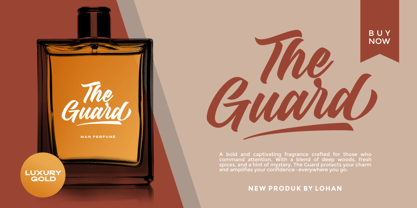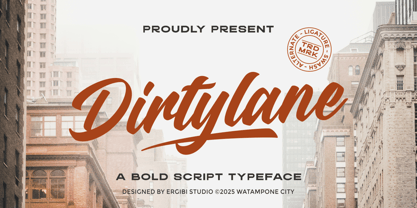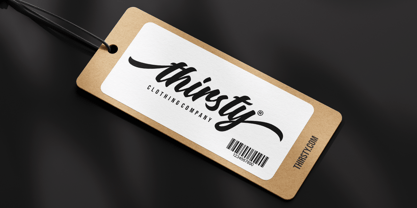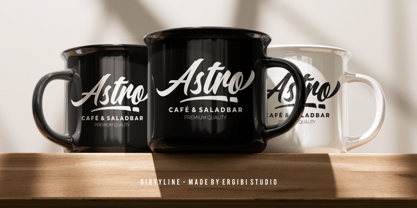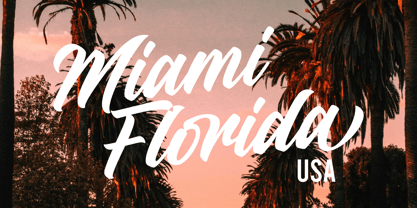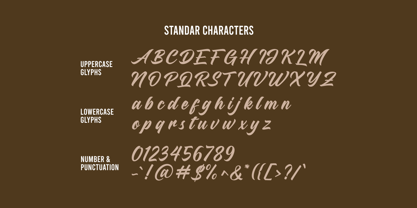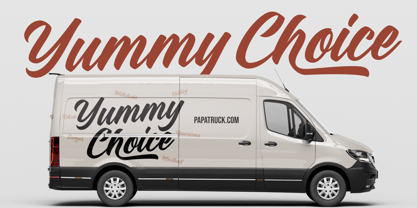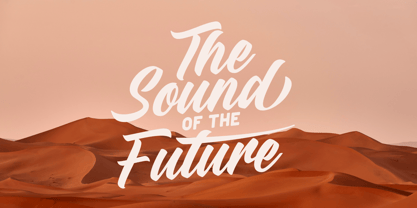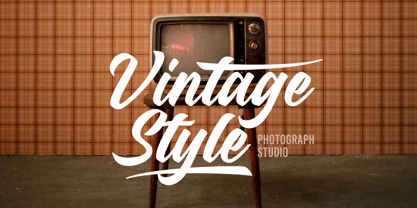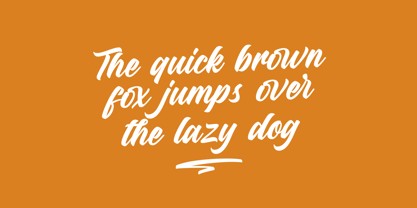
Dirtylane
by Ergibi Studio
The Dirtylane Font Family was designed by Riyadh Rahman and published by Ergibi Studio. Dirtylane contains 1 styles. More about this family
Dirtylane is a bold and energetic script font, crafted with inspiration from the dynamic world of urban fashion. Perfect for elevating your creative works—be it logos, badges, clothing designs, product labels, headlines, posters, or any project that craves a touch of stylish calligraphy.
Equipped with uppercase and lowercase letters, numbers, punctuation marks, and a rich set of alternate characters and ligatures, Dirtylane offers endless customization possibilities to bring your designs to life with a unique, expressive flair.
Designers: Riyadh Rahman
Dirtylane